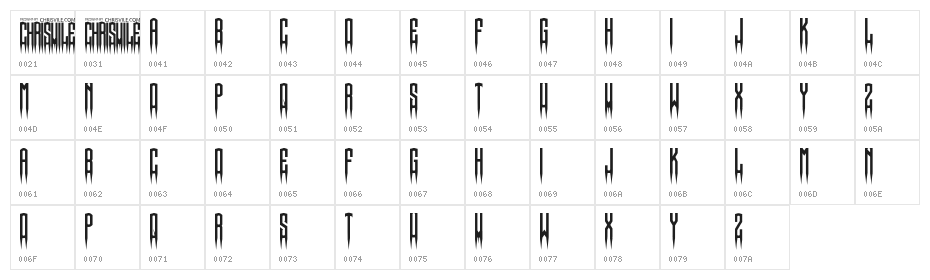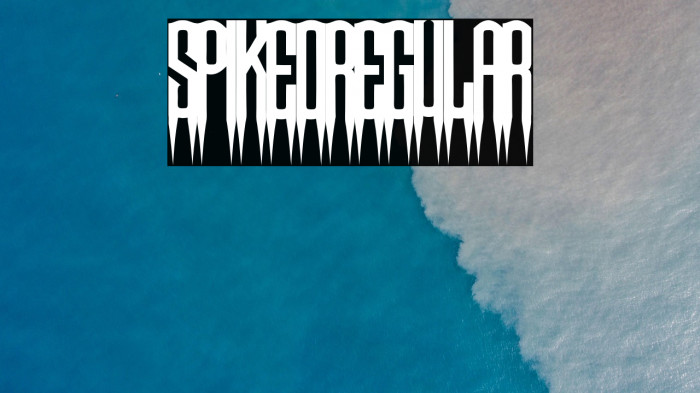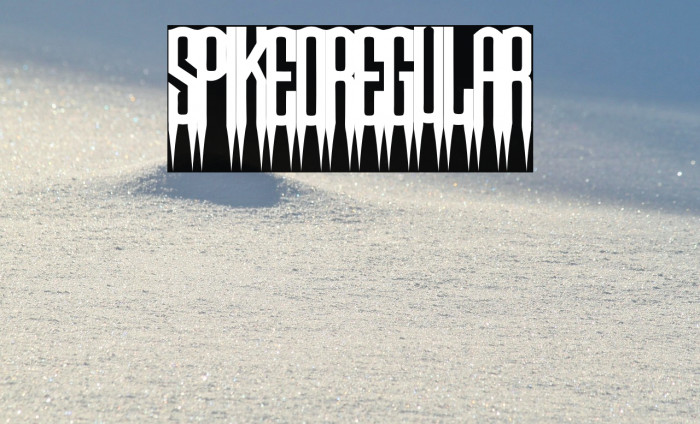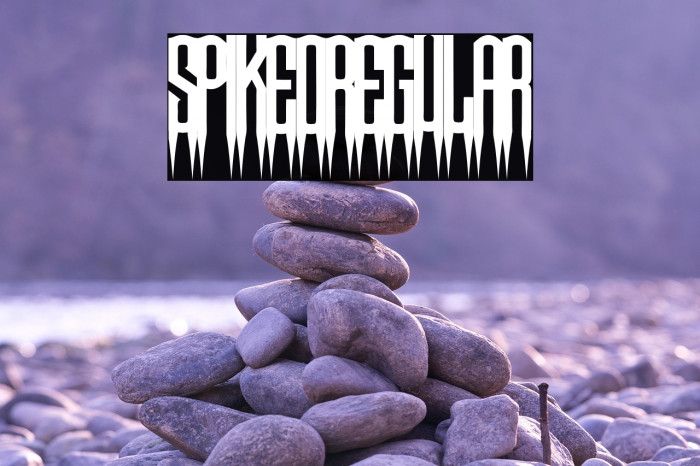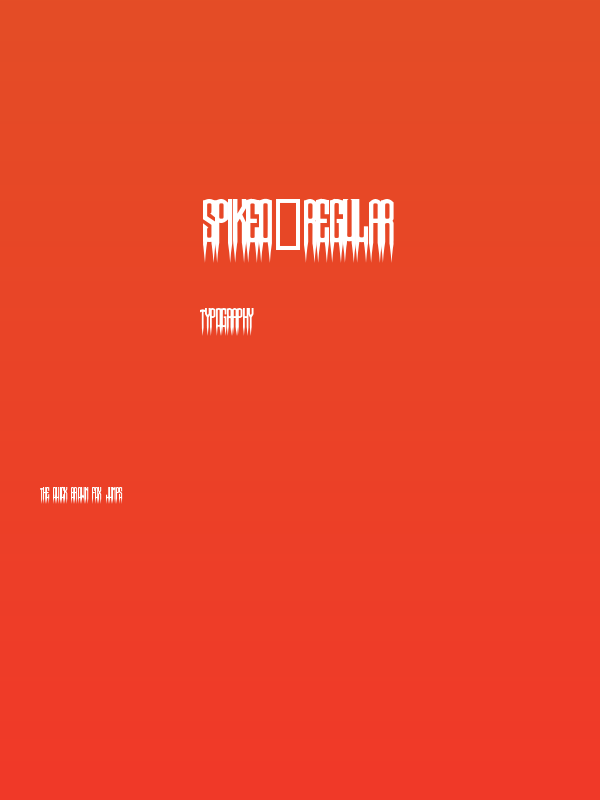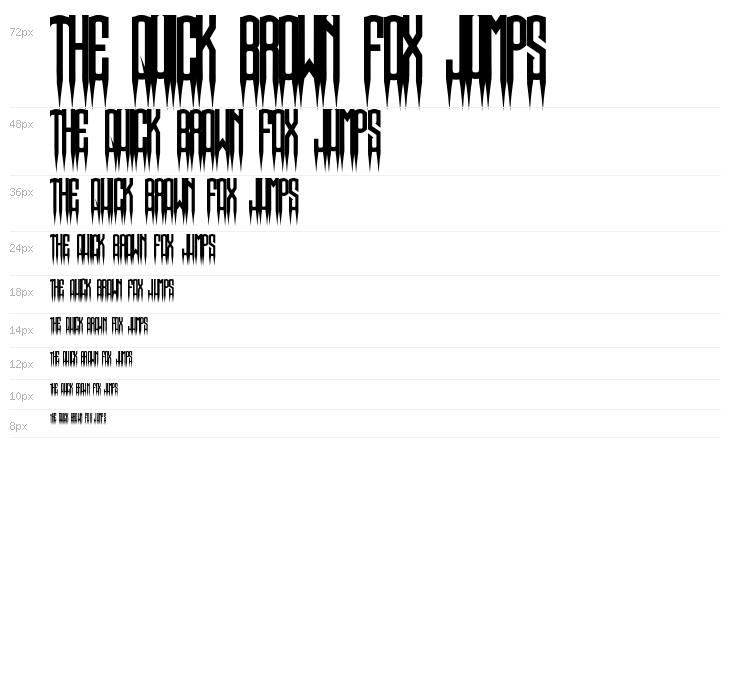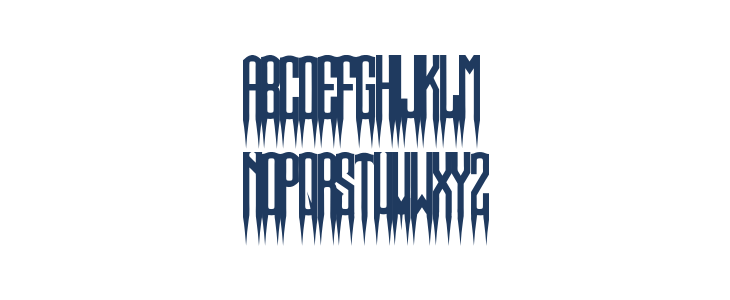
Spiked-Regular Font
Spiked-Regular Description
This font features a striking, edgy design with elongated, pointed elements that give it a spiked appearance. The characters are tall and narrow, creating a dramatic and intense visual impact. The sharp, angular lines suggest a sense of danger or excitement, making it ideal for projects that require a bold and attention-grabbing style. The uppercase and lowercase letters maintain a consistent theme, with each character exhibiting the same spiked characteristics. The font's unique style makes it stand out, perfect for creative and unconventional designs.
| Overall Style | Modern, Edgy |
| Proposed Projects | Ideal for horror-themed posters, edgy branding, music album covers, or any project needing a bold, dramatic typeface. |